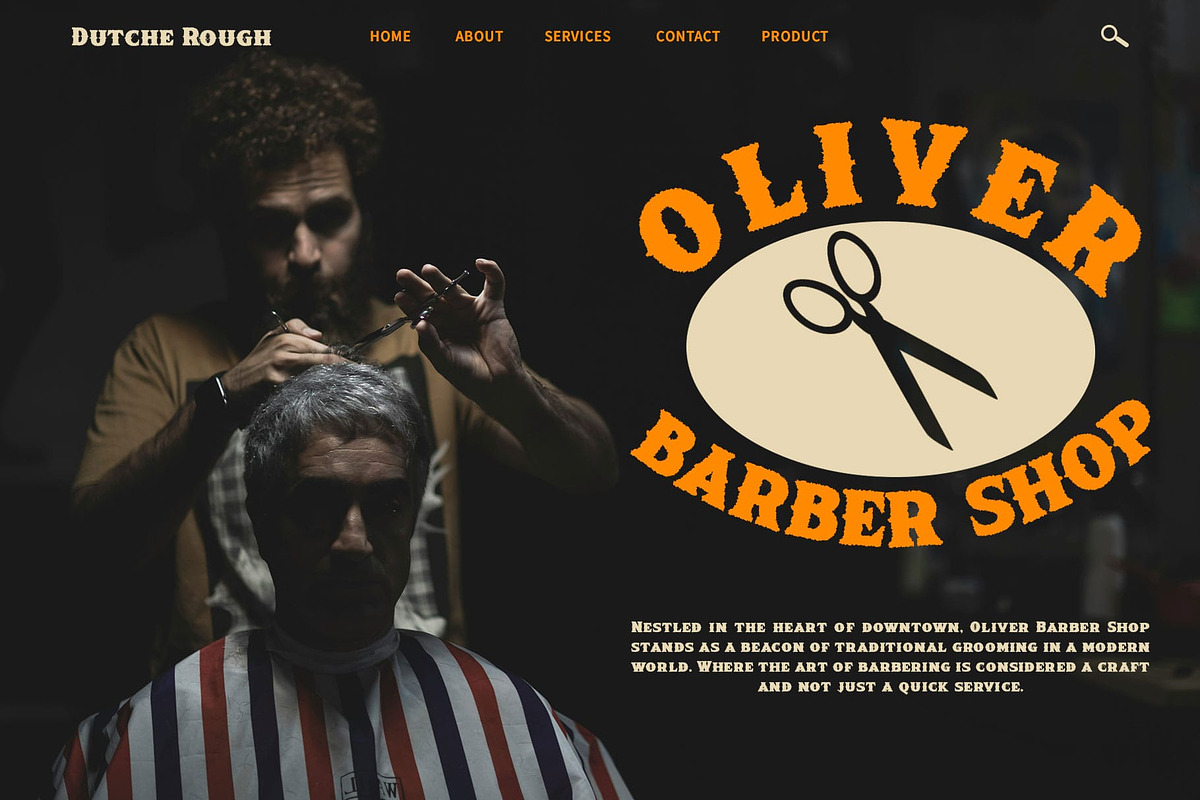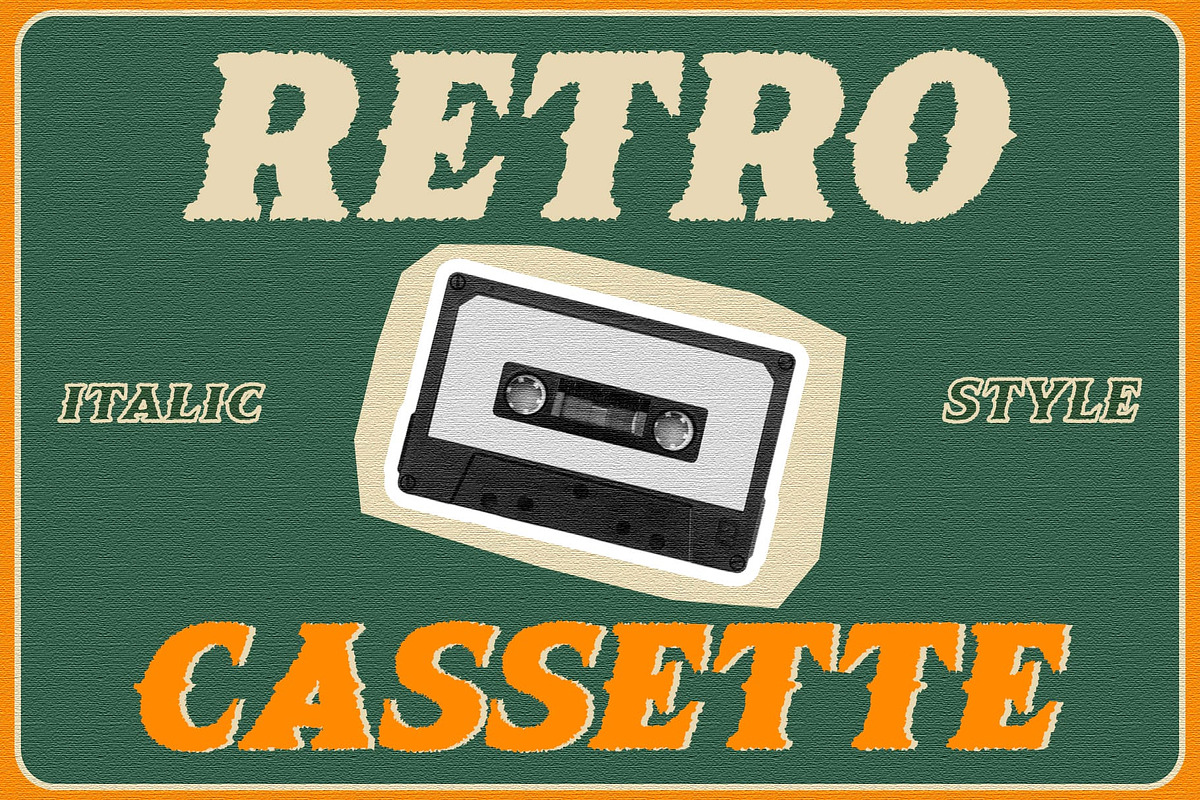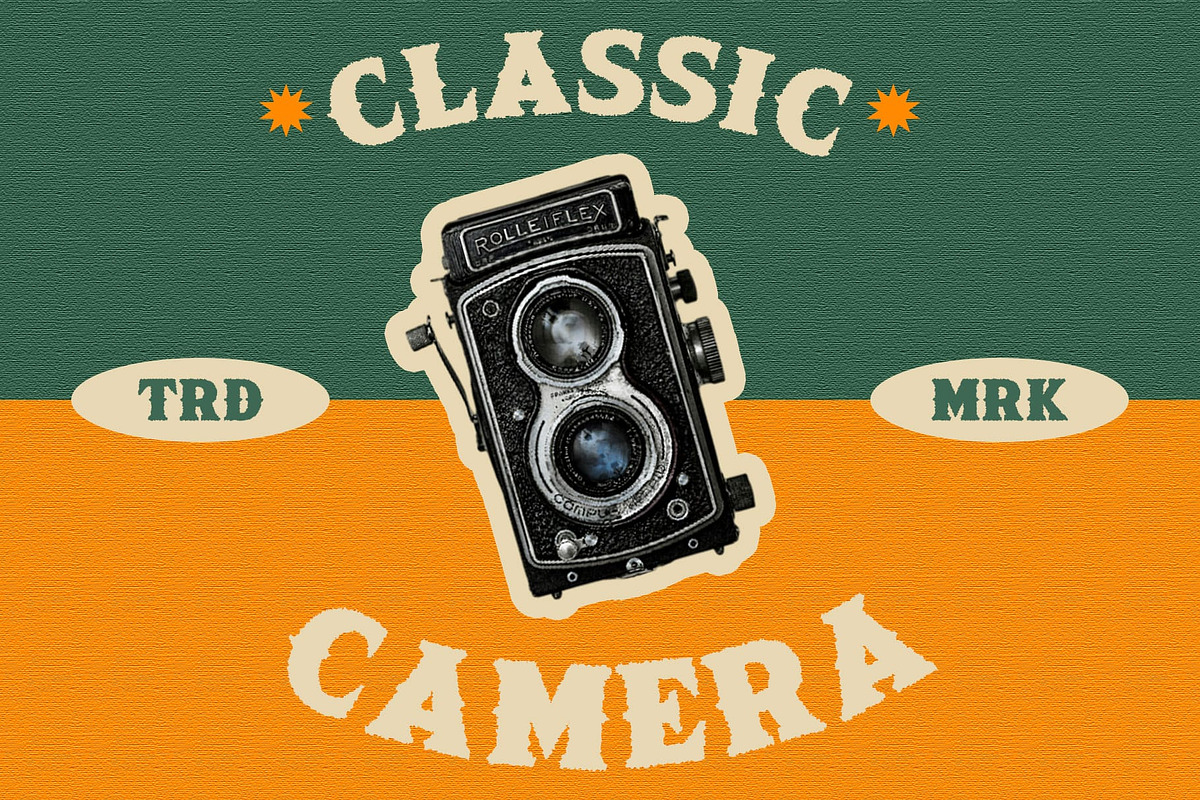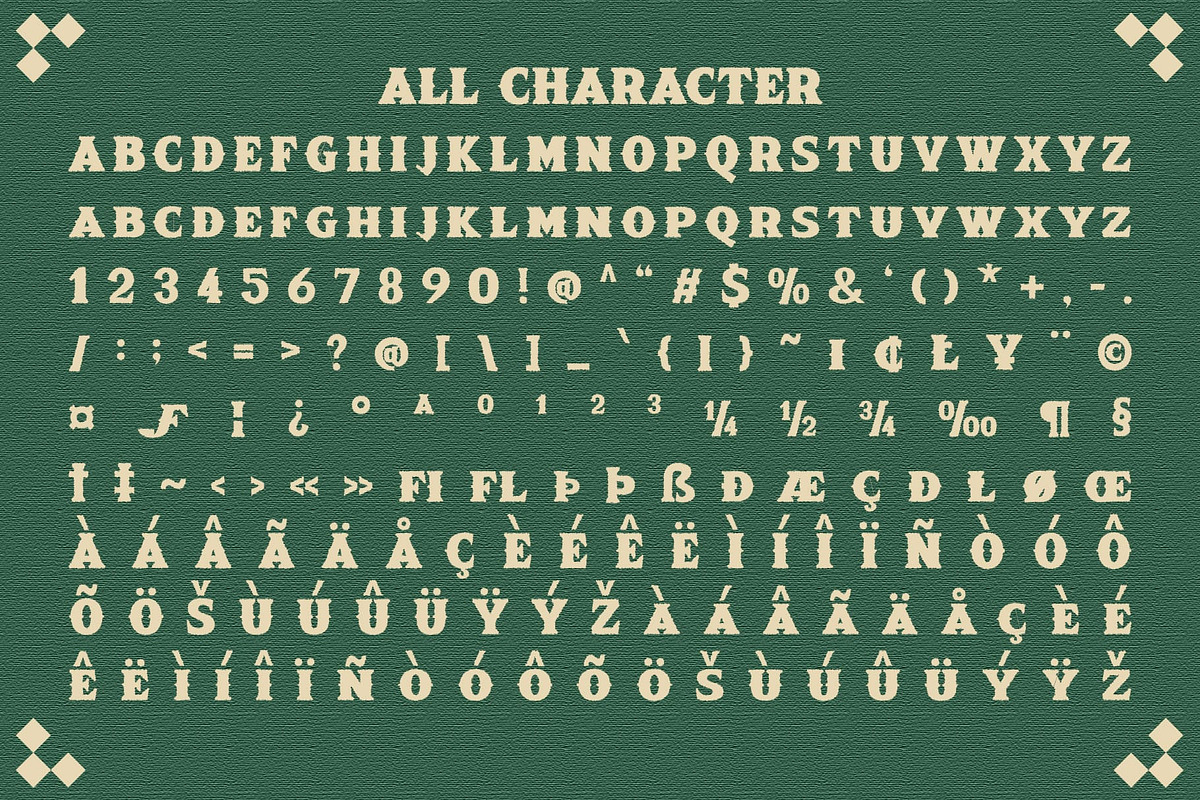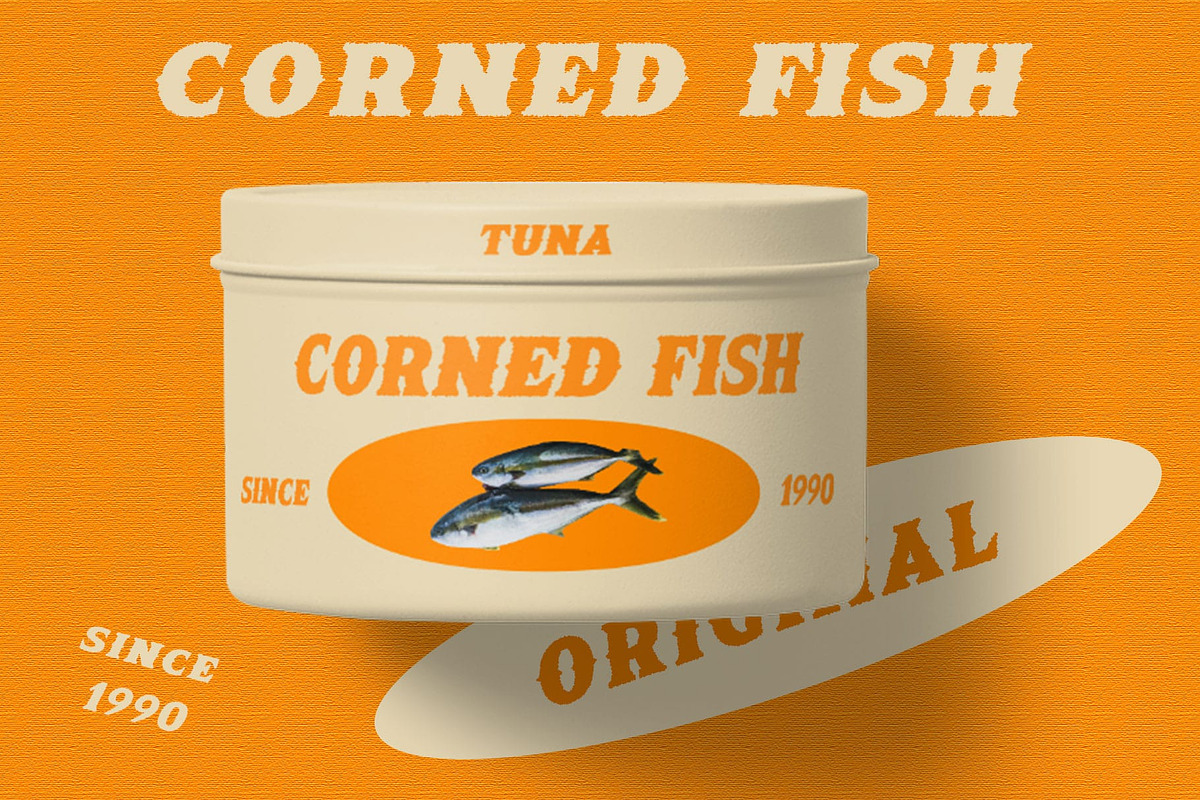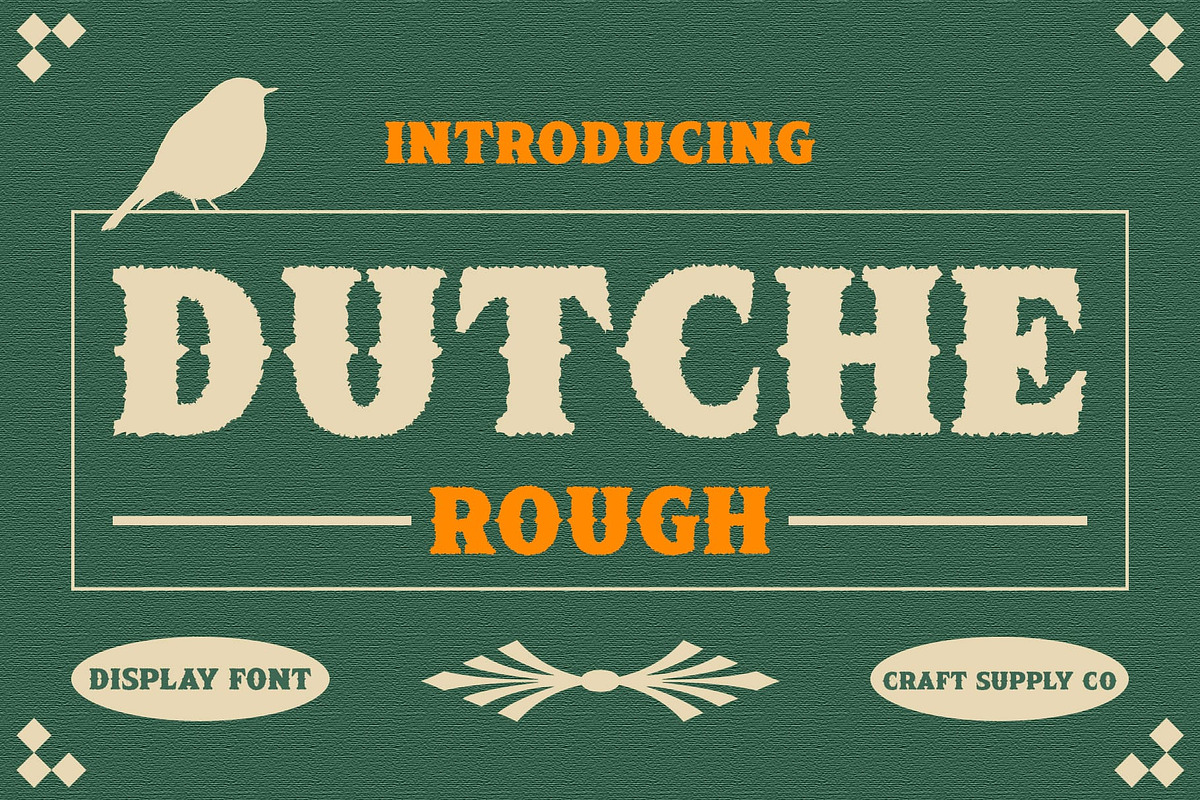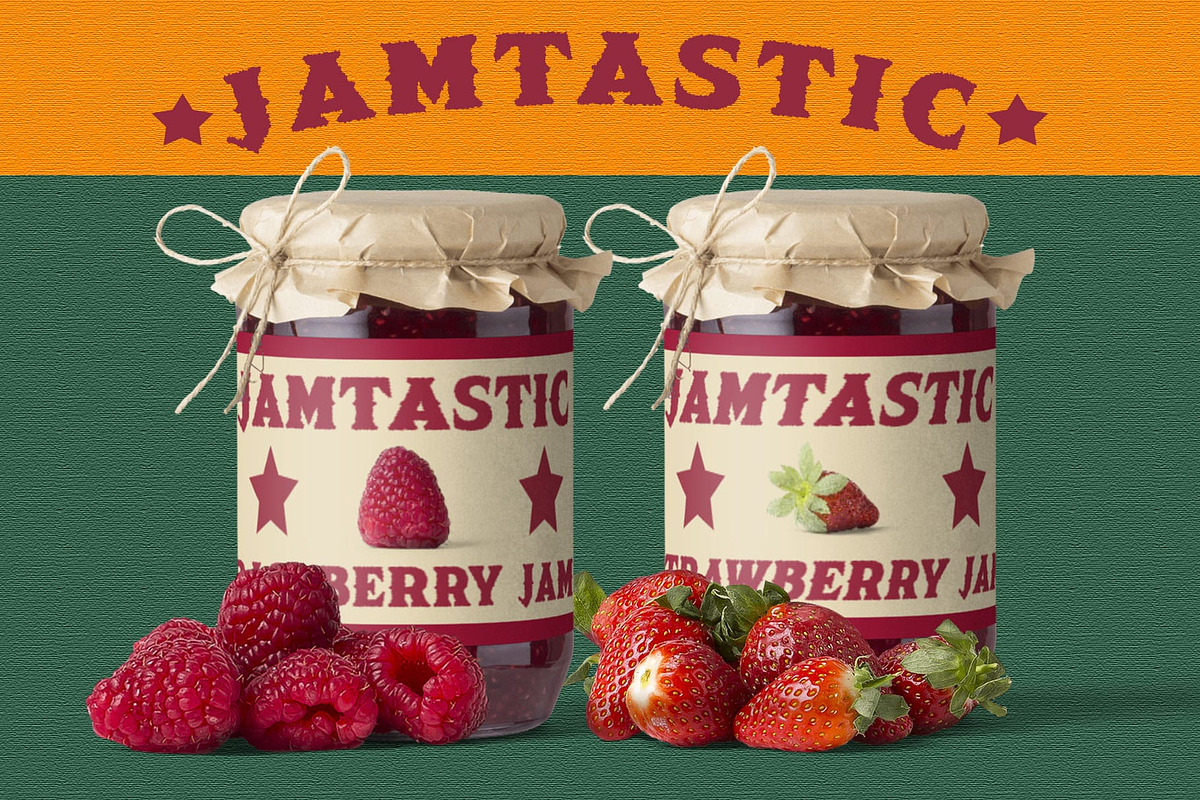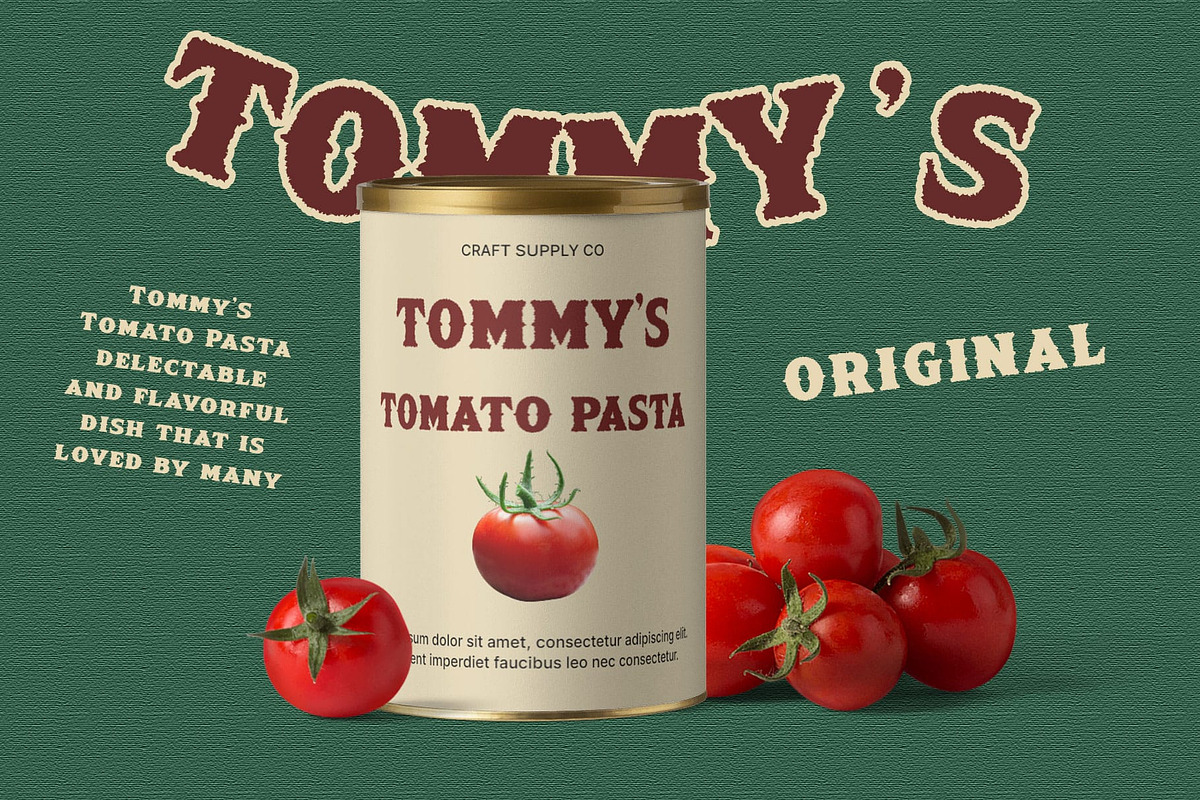
Dutche Rough
Dutche Rough: Vintage Charm with Sharp Serifs
Sharp Serif Display Dutche Rough boasts sharp serif characters that exude sophistication and style. Its distinctive pointed serifs add a touch of elegance to any design.
Moderate Weight With a moderate weight, This font strikes the perfect balance between boldness and readability. Its sturdy presence ensures visibility without overpowering the overall design.
Rough Vintage Effect The font is enhanced with a rough vintage effect, adding texture and character to each letterform. This effect gives This font is a nostalgic appeal, reminiscent of classic signage and posters.
Ideal for Display Projects This font is specifically designed for display purposes, making it ideal for headlines, titles, and other prominent elements. Its sharp serifs and vintage roughness make it stand out in any design composition.
Timeless Elegance with a Vintage Twist This font combines sharp serif design with a moderate weight and vintage rough effect to create a font that is both elegant and nostalgic. Perfect for display projects, it adds a touch of sophistication and charm to any design endeavor.